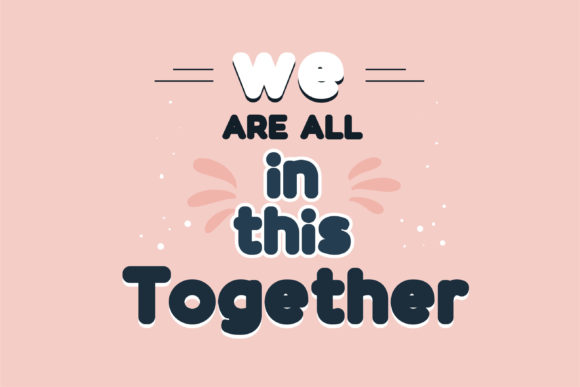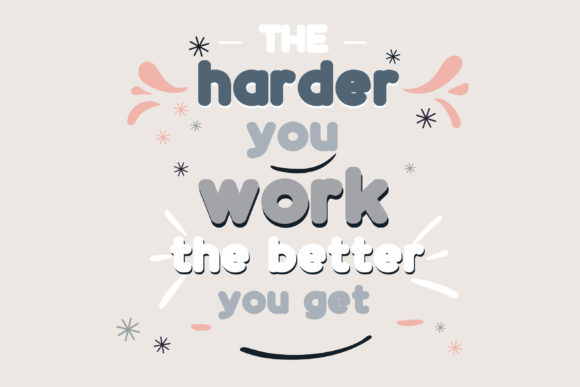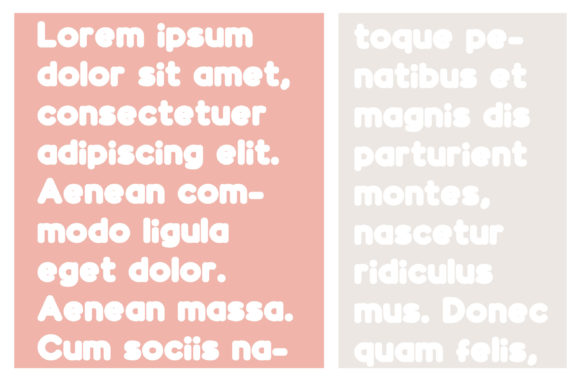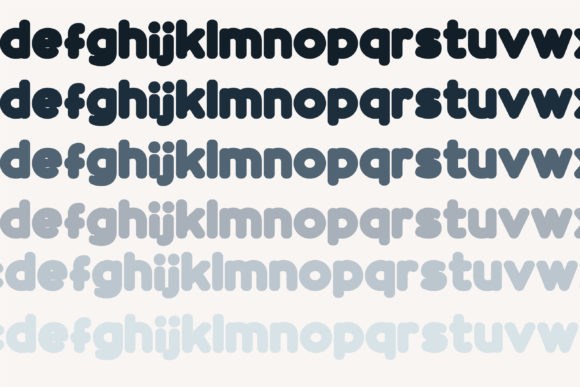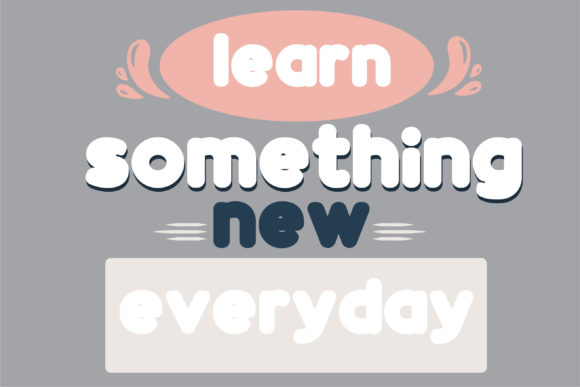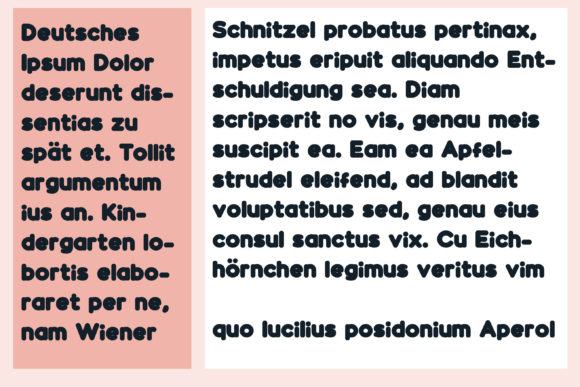
Coco Nuts Font: The Ultimate Bold and Rounded Sans Serif for Your Design Projects
Are you tired of using the same old fonts in your design projects? Look no further than Coco Nuts Font, a big, bold, rounded sans serif font that’s sure to make a statement. With its unique and eye-catching design, Coco Nuts is the perfect addition to any project, from crafting and DIY tutorials to branding and advertising campaigns.
What is Coco Nuts Font?
Coco Nuts Font is a modern sans serif font that’s designed to be both bold and beautiful. Its rounded edges and smooth lines make it a versatile font that can be used in a variety of contexts, from digital displays to print materials. Whether you’re creating a logo, a brochure, or a social media graphic, Coco Nuts Font is the perfect choice for designers and crafters who want to add a touch of personality to their work.
Key Features of Coco Nuts Font
- Big and Bold: Coco Nuts Font is designed to make a statement, with thick lines and a confident presence that’s sure to grab attention.
- Rounded Sans Serif: The font’s rounded edges and smooth lines give it a friendly and approachable feel that’s perfect for a wide range of design projects.
- Versatile: Coco Nuts Font can be used in a variety of contexts, from digital displays to print materials, and is suitable for use in logos, brochures, social media graphics, and more.
- Easily Readable: Despite its bold design, Coco Nuts Font is easy to read, even at small sizes, making it perfect for use in body text as well as headlines.
Why Choose Coco Nuts Font?
So why choose Coco Nuts Font for your design projects? Here are just a few reasons:
- Unique and Eye-Catching: Coco Nuts Font is a one-of-a-kind font that’s sure to make your designs stand out from the crowd.
- Time-Saving: With Coco Nuts Font, you can create professional-looking designs in no time, without having to spend hours searching for the perfect font.
Coco Nuts Font in Action
Coco Nuts Font can be used in a wide range of design projects, from crafting and DIY tutorials to branding and advertising campaigns. Here are a few examples of how Coco Nuts Font can be used:
- Crafting Tutorials: Use Coco Nuts Font to add a touch of personality to your crafting tutorials, from knitting patterns to woodworking plans.
- Branding and Advertising: Coco Nuts Font is perfect for use in branding and advertising campaigns, from logos to billboards.
- Social Media Graphics: Use Coco Nuts Font to create eye-catching social media graphics that are sure to grab attention.
- Print Materials: Coco Nuts Font can be used in a variety of print materials, from brochures to business cards.
Coco Nuts Font is a big, bold, rounded sans serif font that’s perfect for designers and crafters who want to add a touch of personality to their work. With its unique and eye-catching design, Coco Nuts Font is sure to make a statement in any design project. Whether you’re creating a logo, a brochure, or a social media graphic, Coco Nuts Font is the perfect choice. So why wait? Download Coco Nuts Font today and start creating amazing designs!